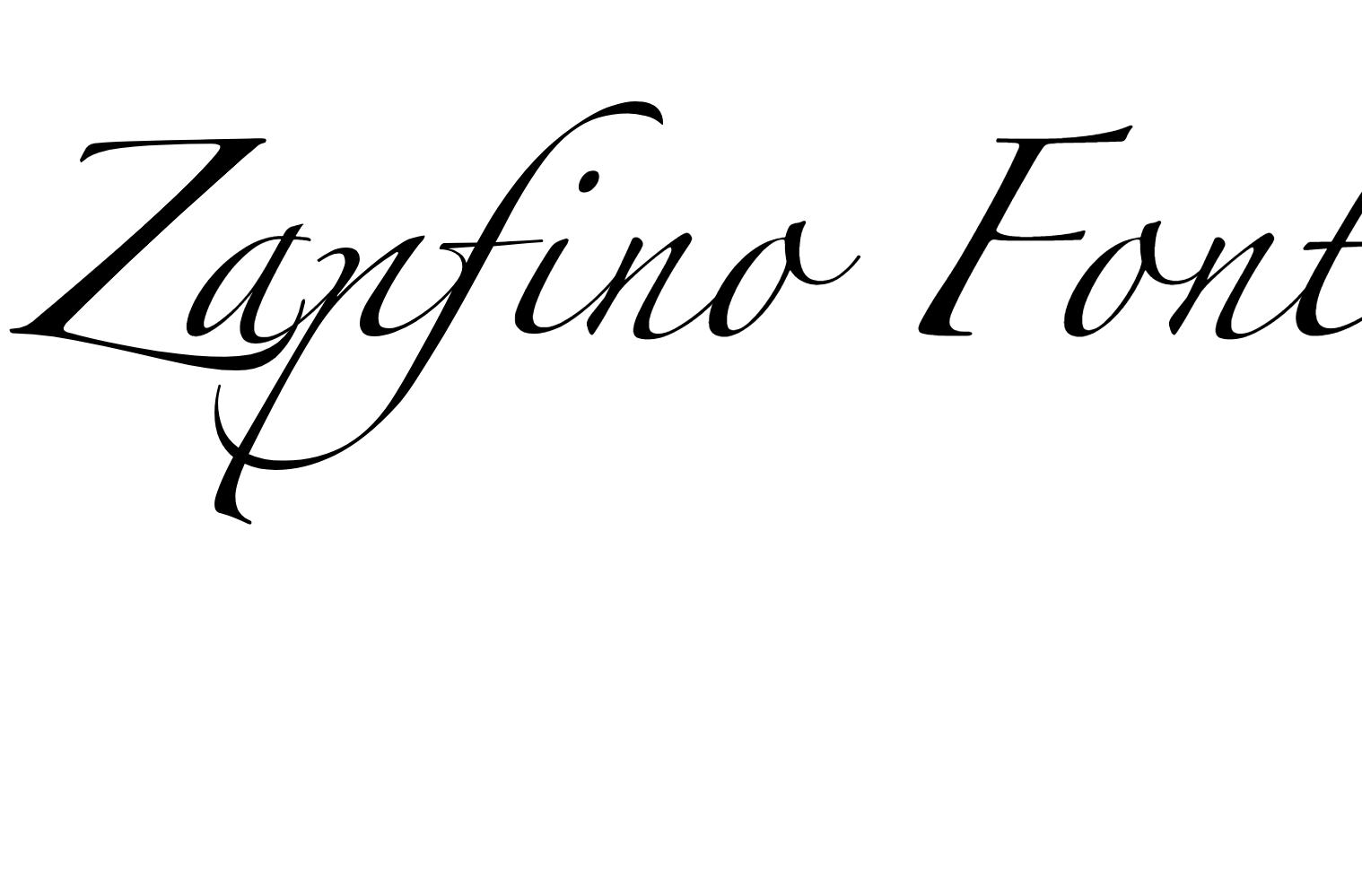
Zapfino Font
Legendary German typographer Hermann Zapf designed Zapfino, a world-renowned calligraphic script typeface and a masterpiece of digital typography. The Linotype foundry released it in 1998, and you can download a version that is free for personal use.